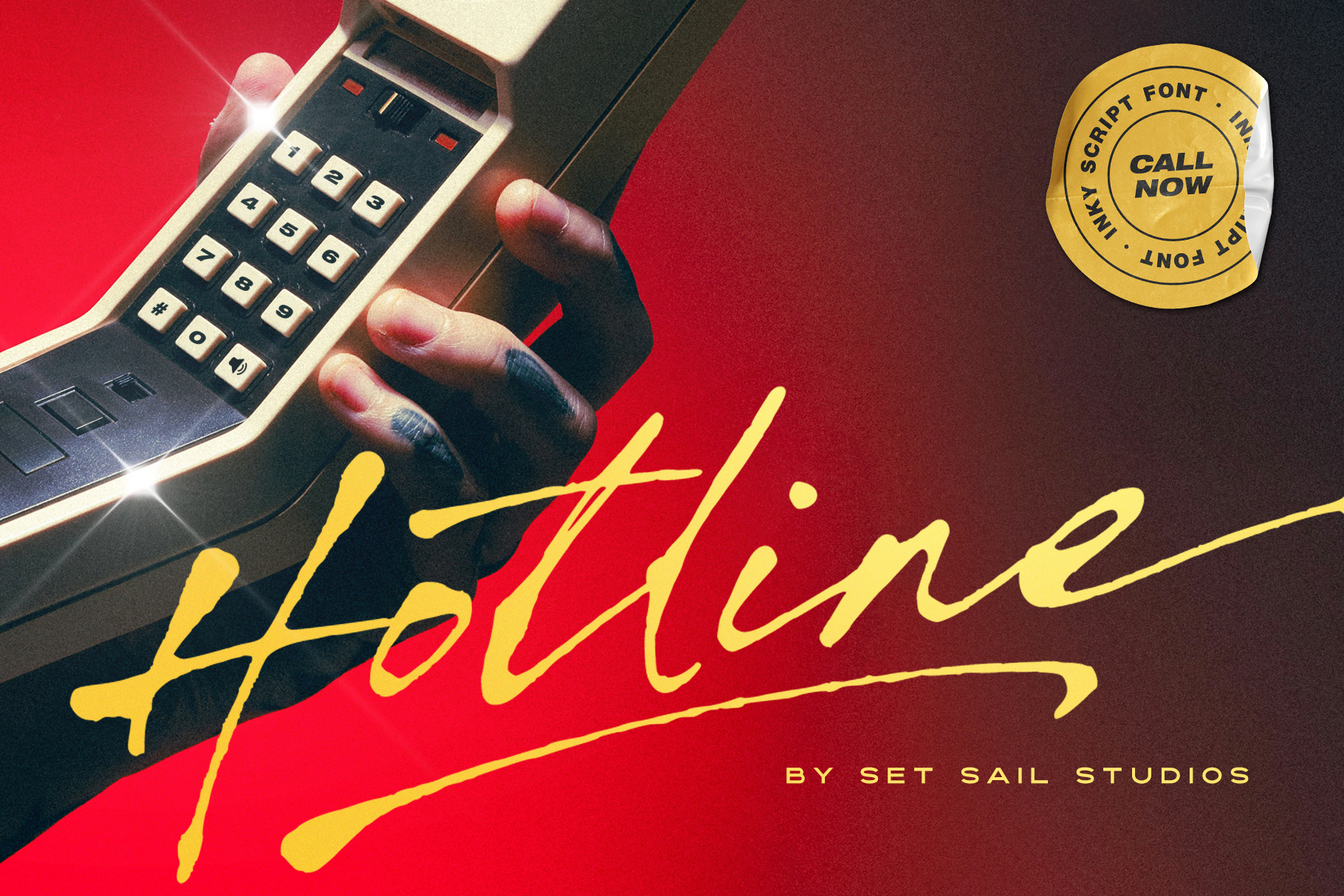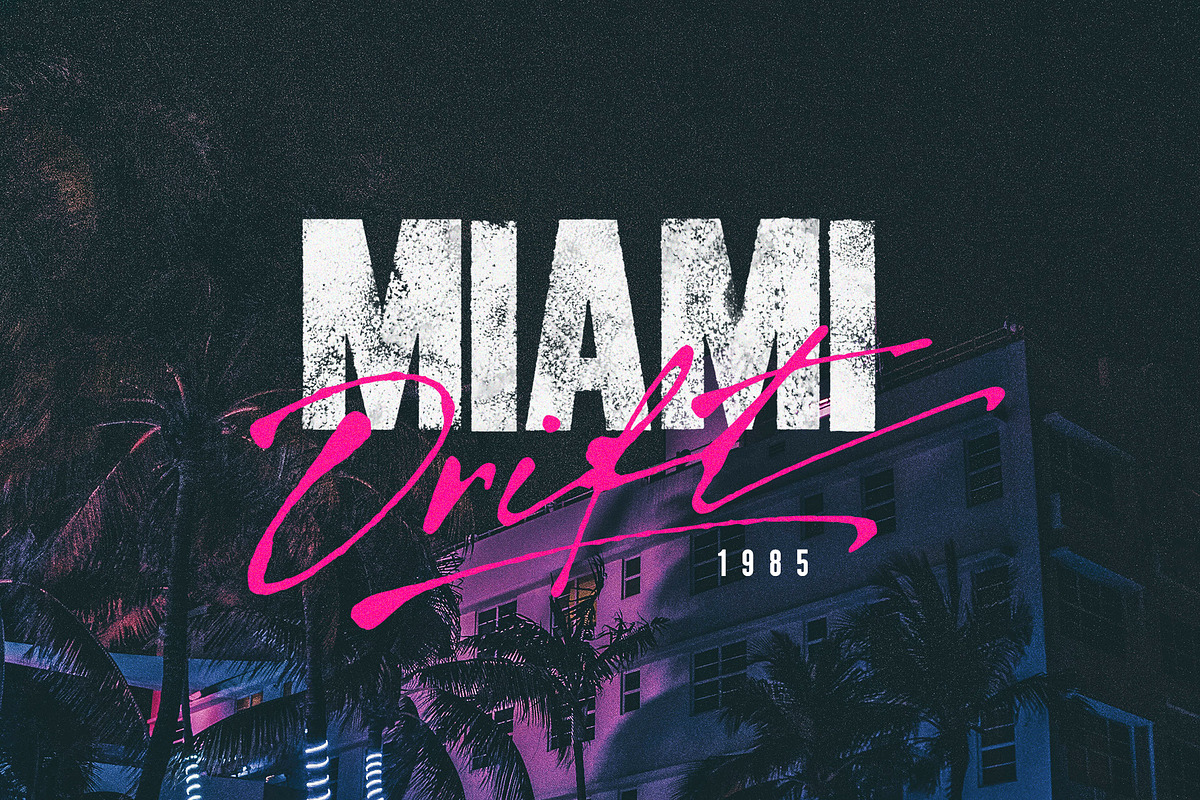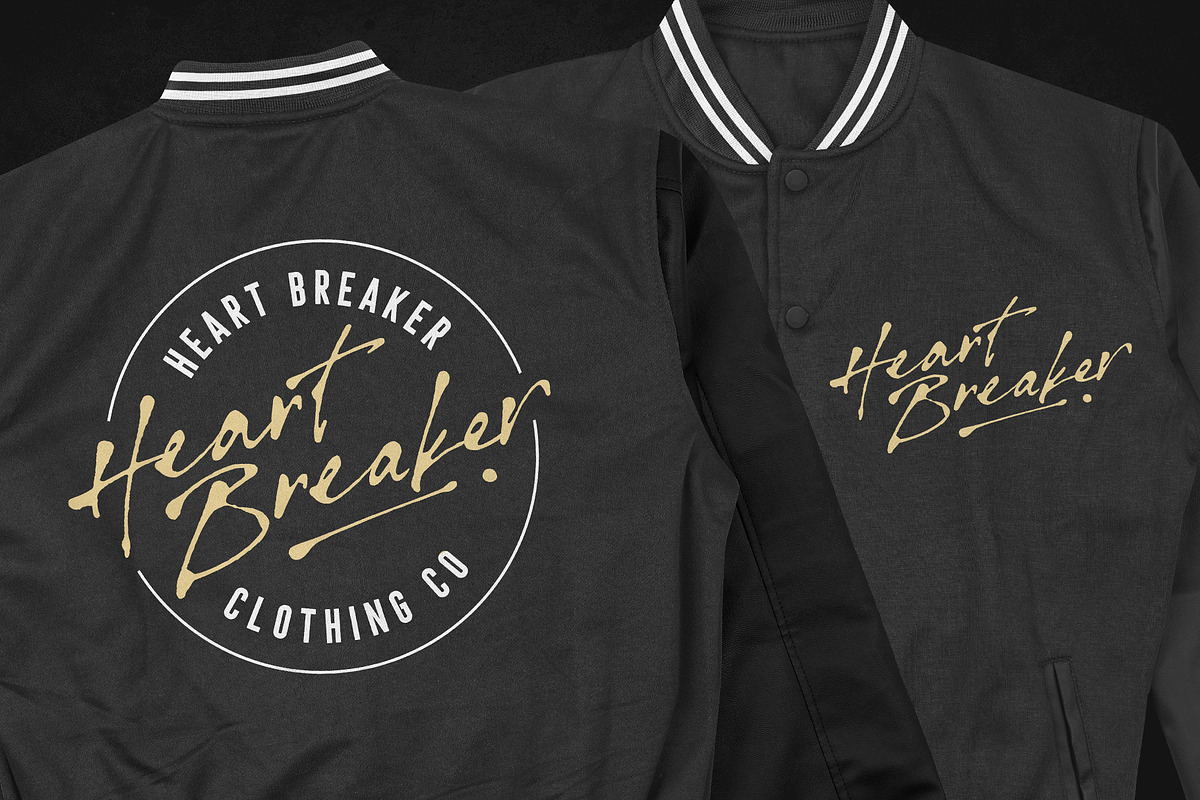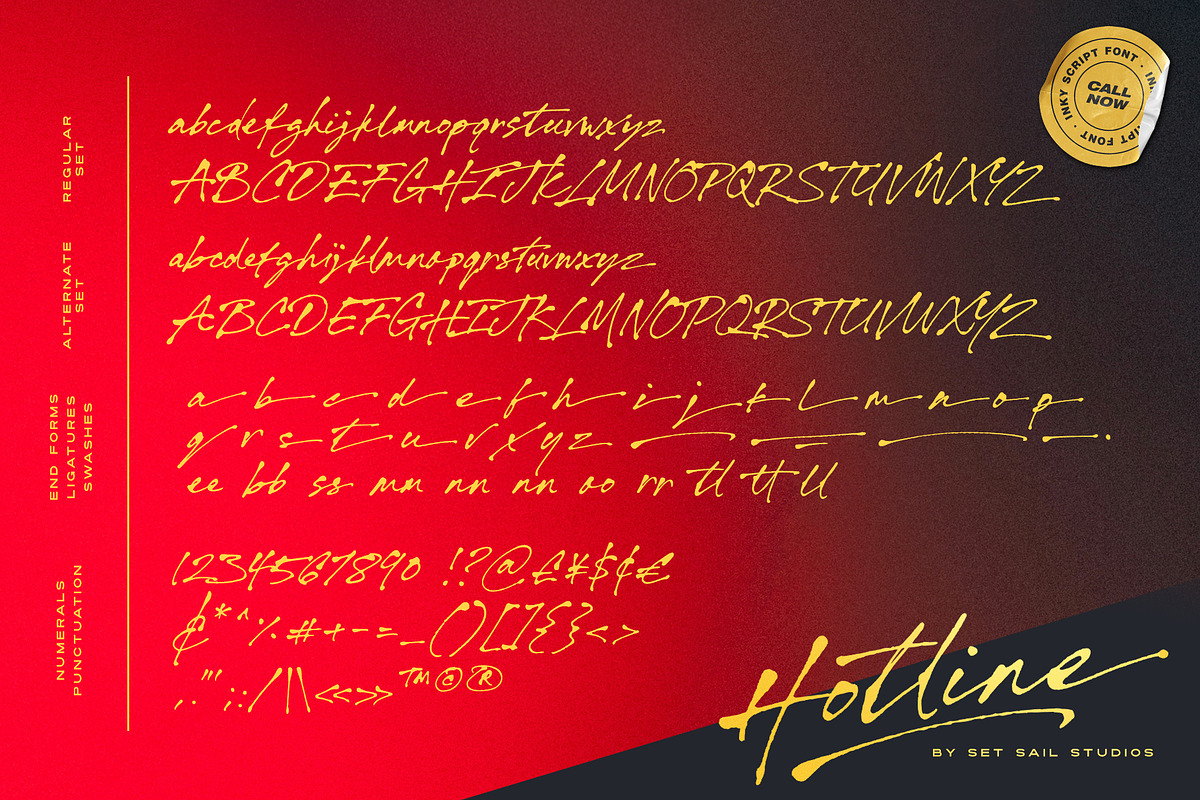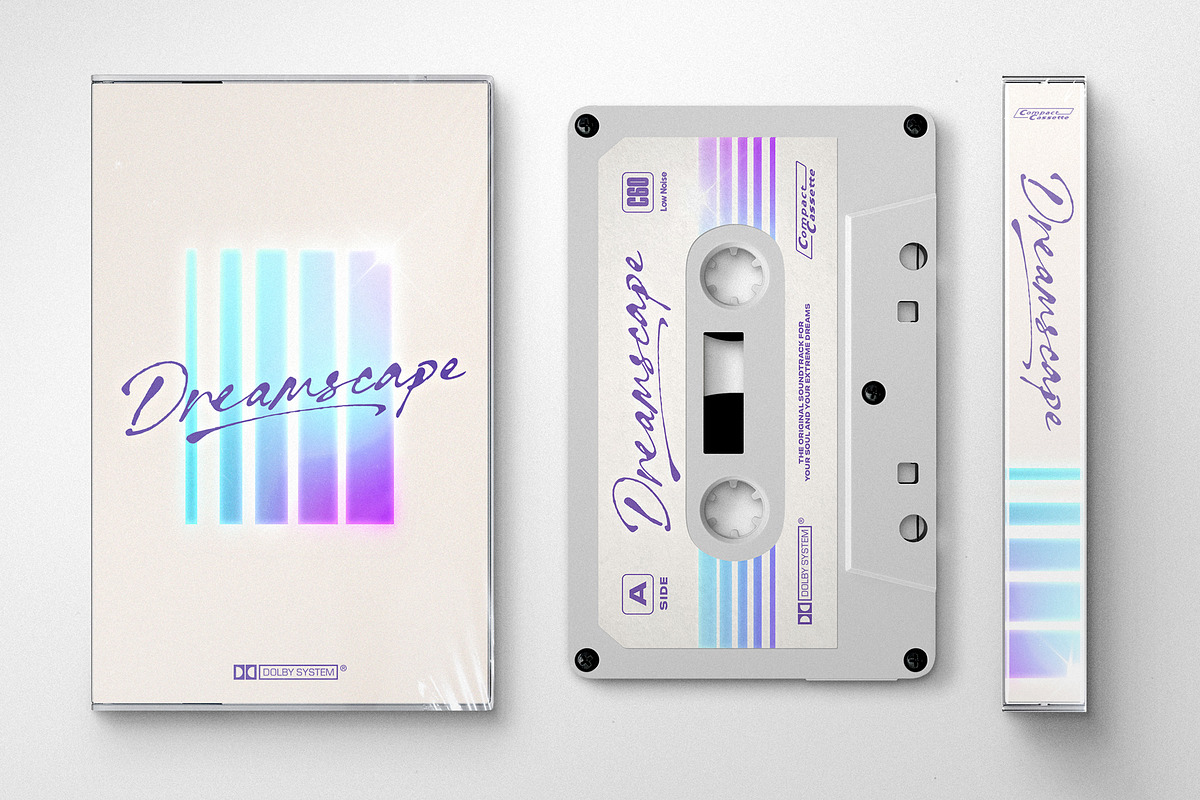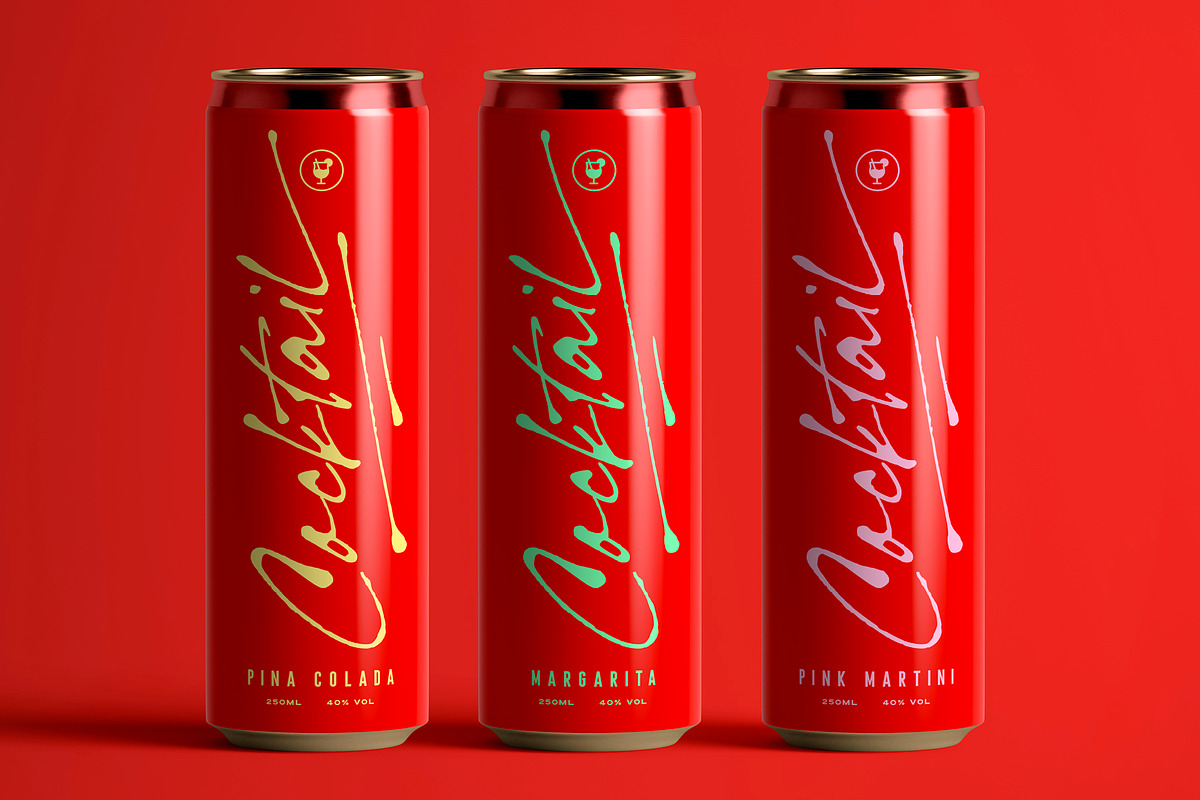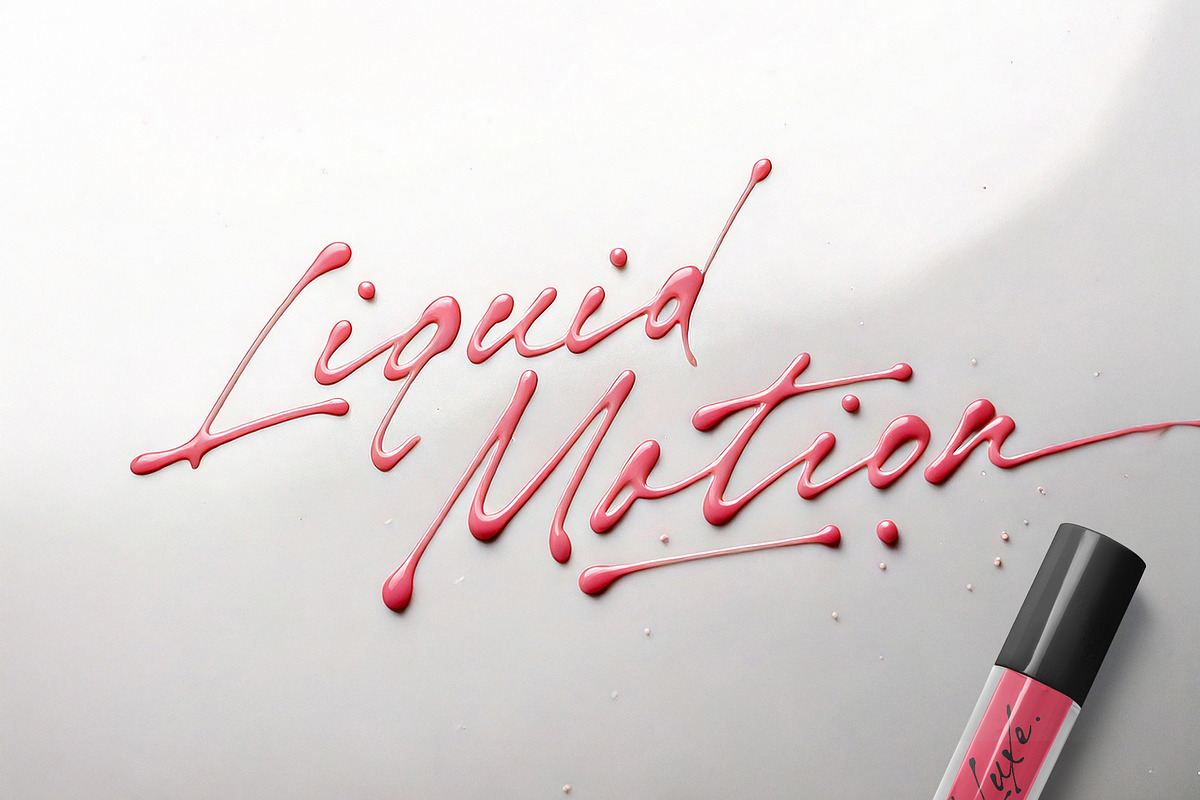
Hotline Script Font
Hotline Script is a high energy, free-flowing script font hand-drawn with real ink, inspired by nostalgia and loaded with fast, texture-packed blotchy strokes. It comes with 2 full sets of upper & lowercase characters available in the Regular and Alternate variations which provide you with multiple layout options, as well as a set of lowercase end-forms for adding a finishing touch to your word mark (accessible by turning on ‘Stylistic Alternates’). 4 Swashes are also included, great for adding some extra energy and flair to underline your Hotline Script text – accessible by typing any of the bracket/brace characters [ ] { }. Last but not least, 11 ligatures are included to help repeated lowercase letters flow more naturally (available by turning on Standard Ligatures).
Hotline is a cool & confident font choice, packed with retro-fuelled energy and personality – so the next time you need bold headlines, display text, signature-style logos, posters, liquid lettering and more… Remember to Call Hotline 🔥📞.